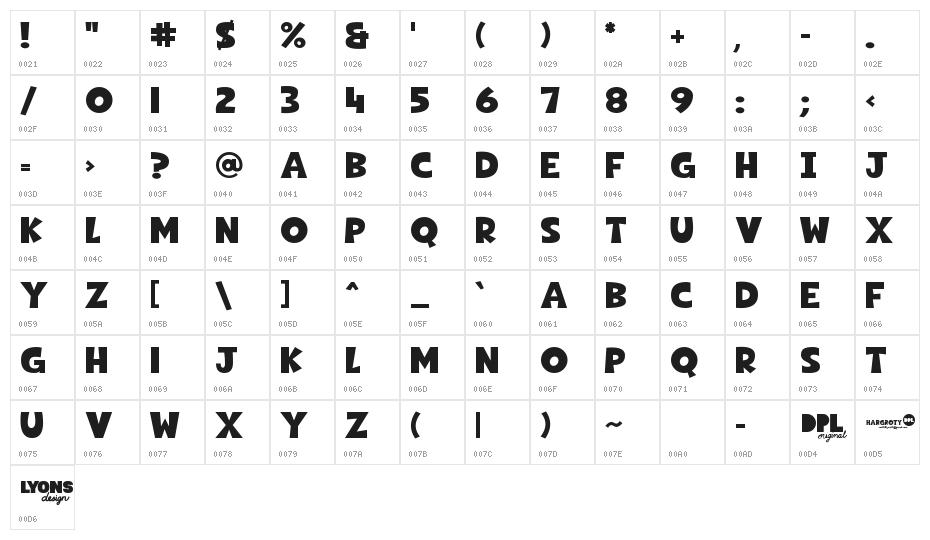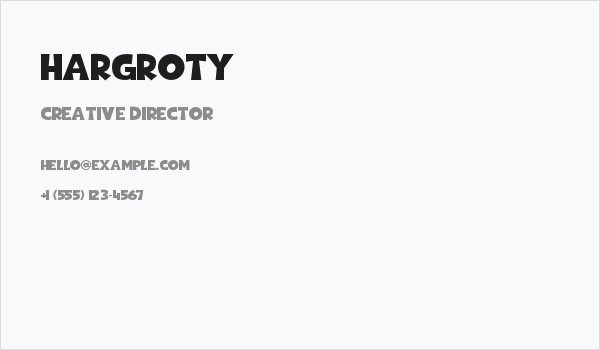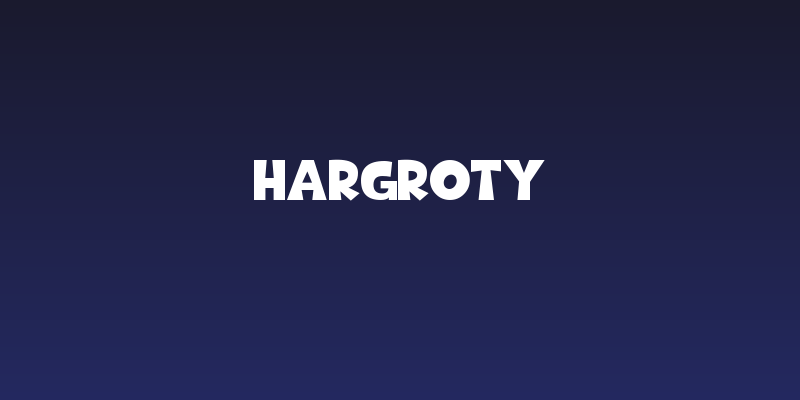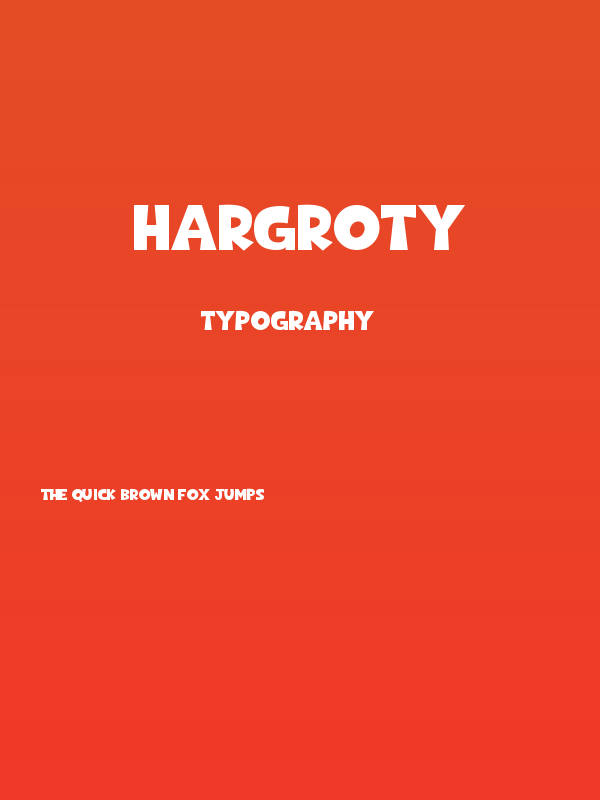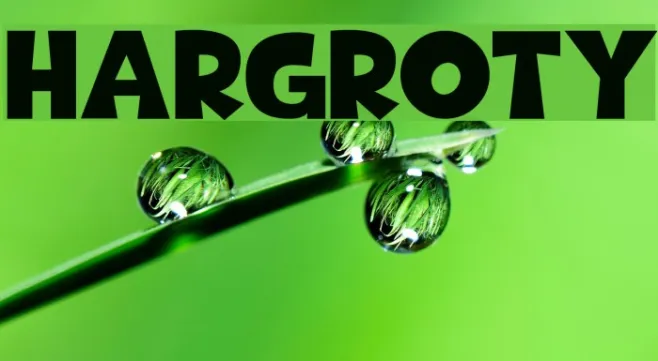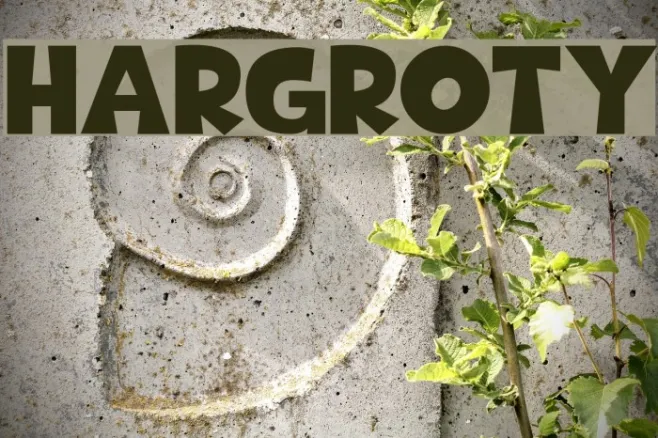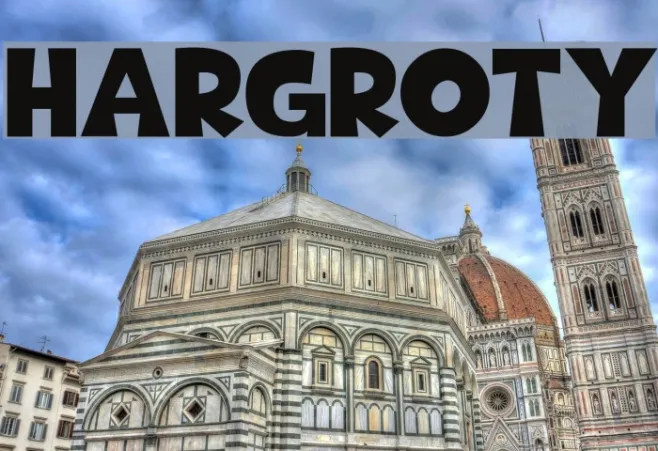
Hargroty Font
Hargroty Description
This font features bold, playful characters with a strong presence. The letters are thick and rounded, giving a sense of fun and energy. The uppercase and lowercase letters maintain a consistent style, with exaggerated curves and angles that create a dynamic appearance. The numbers and special characters follow the same bold and lively design, making the font suitable for eye-catching displays. The overall look is modern and slightly whimsical, perfect for projects that require a touch of creativity and boldness.
| Overall Style | Playful, Modern |
| Use Case | Headlines, Posters, Branding |
| Proposed Projects | Ideal for children's books, playful branding, posters, and any project needing a bold, fun aesthetic. |